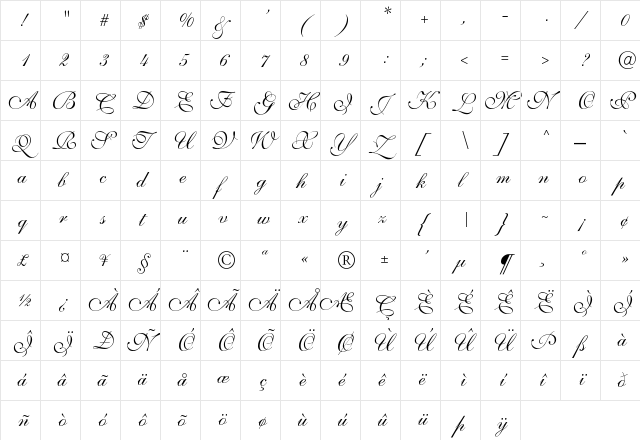
Shloanak Script Regular
Design Context for Shloanak Script Typeface
Shloanak Script flows with the natural rhythm of handwritten lettering, making it ideal for designs that call for warmth and personal expression.
Font Pairing: Combine Shloanak Script with a simple geometric sans for maximum contrast — the tension between flowing curves and clean structure is a classic typographic pairing.
Pro Tip: Use Shloanak Script for short runs of text — names, titles, or taglines. Extended body copy in script faces tires the eye quickly.